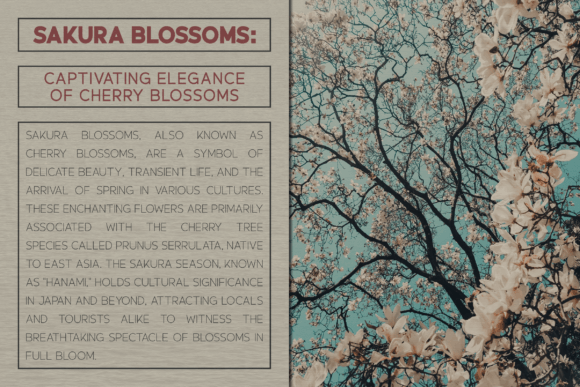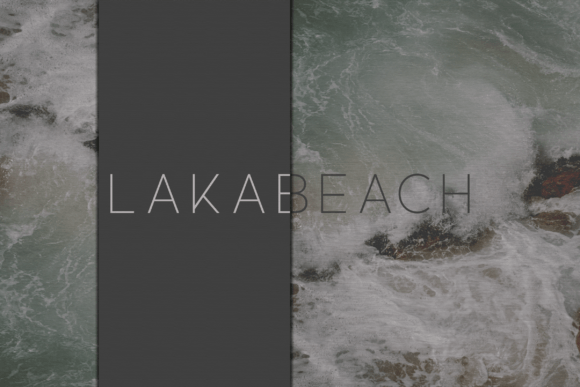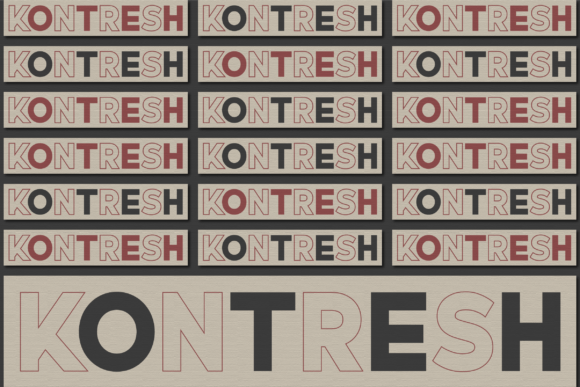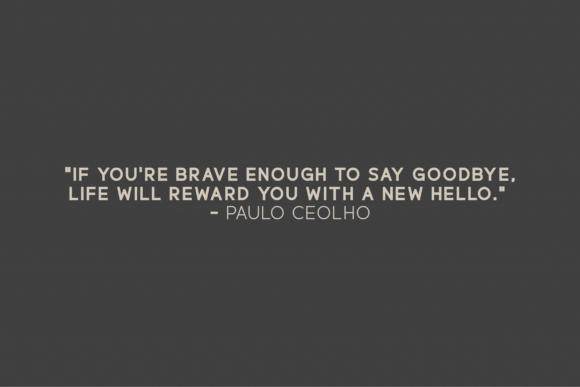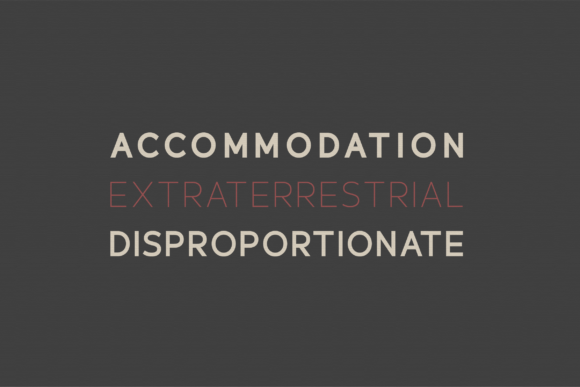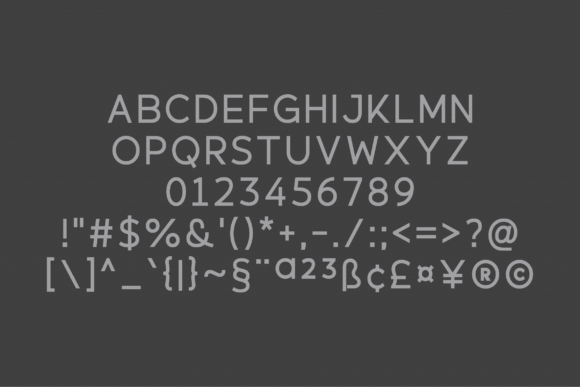
Introduction to Expressive Font
Introducing our exquisite font family, the Expressive an embodiment of elegance and minimalism.
With 6 distinct weights, this sans-serif collection seamlessly combines modernity and luxury Crafted with utmost precision, it effortlessly enhances any project, whether it be a magazine, logo, or film poster.